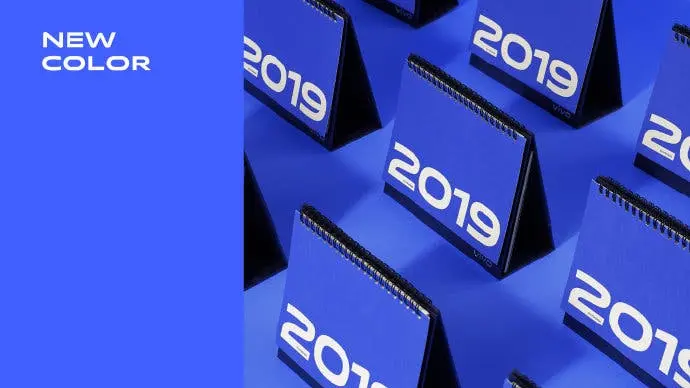
vivo outs a new brand color and font, to debut with the VIVO APEX 2019
Chinese phone company Vivo has ditched its old brand color and font for a new one that will become mainstream in due course. To be precise, the brand is dropping the old Pantone 2925 C logo for the Pantone 2386 logo with a new font.
While that appears not too impressive, the new font is in a way different from the old one, it’s rounder and vertically compressed. You can fist your eyes on the old and the new logo fonts that will henceforth appear on your cherished VIVO phones below.
The brand said the new logo will first be exclusive to the Chinese market before it will extend to devices meant for other markets before the end of March.
Speaking of the first phones that will get the new logo font, VIVO is all set to unveil a unique “waterdrop” phone in China on January 24, and based on the teaser released so far, that particular device might just be the first to bear the new logo font.